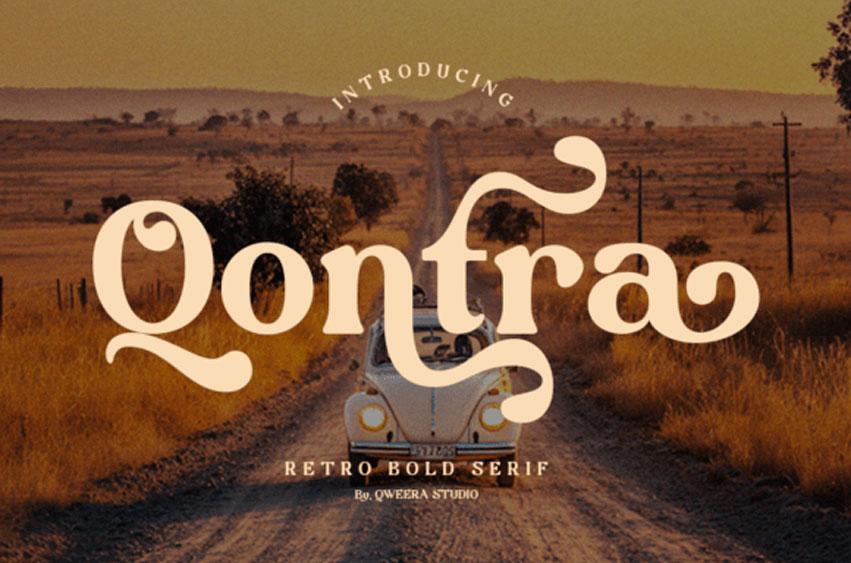
Qontra Font is a retro bold serif typeface designed with expressive curves and vintage-inspired styling. Perfect for posters, logos, packaging, and branding projects that need strong personality.
Its bold structure and decorative details create a nostalgic yet modern look, making it ideal for standout typography.
Perfect for designers who want retro style with modern flexibility.